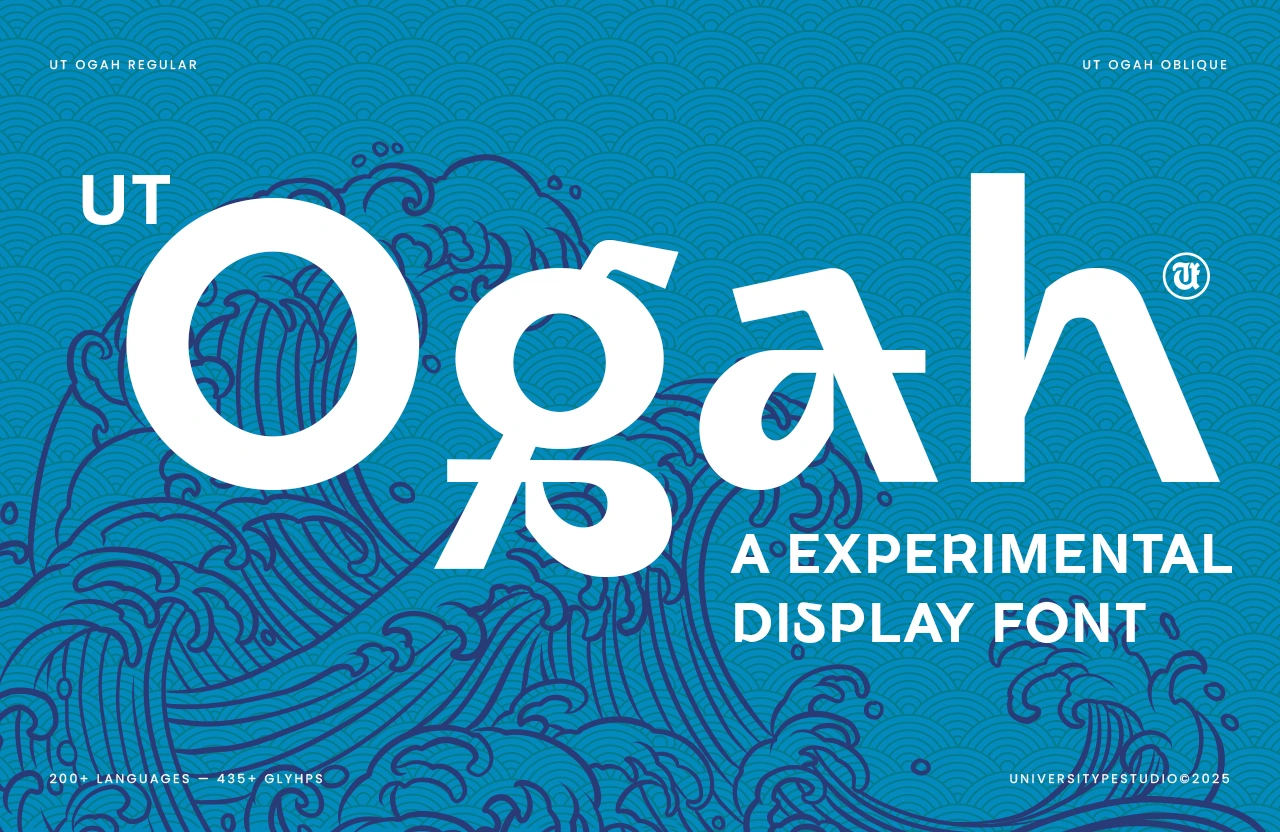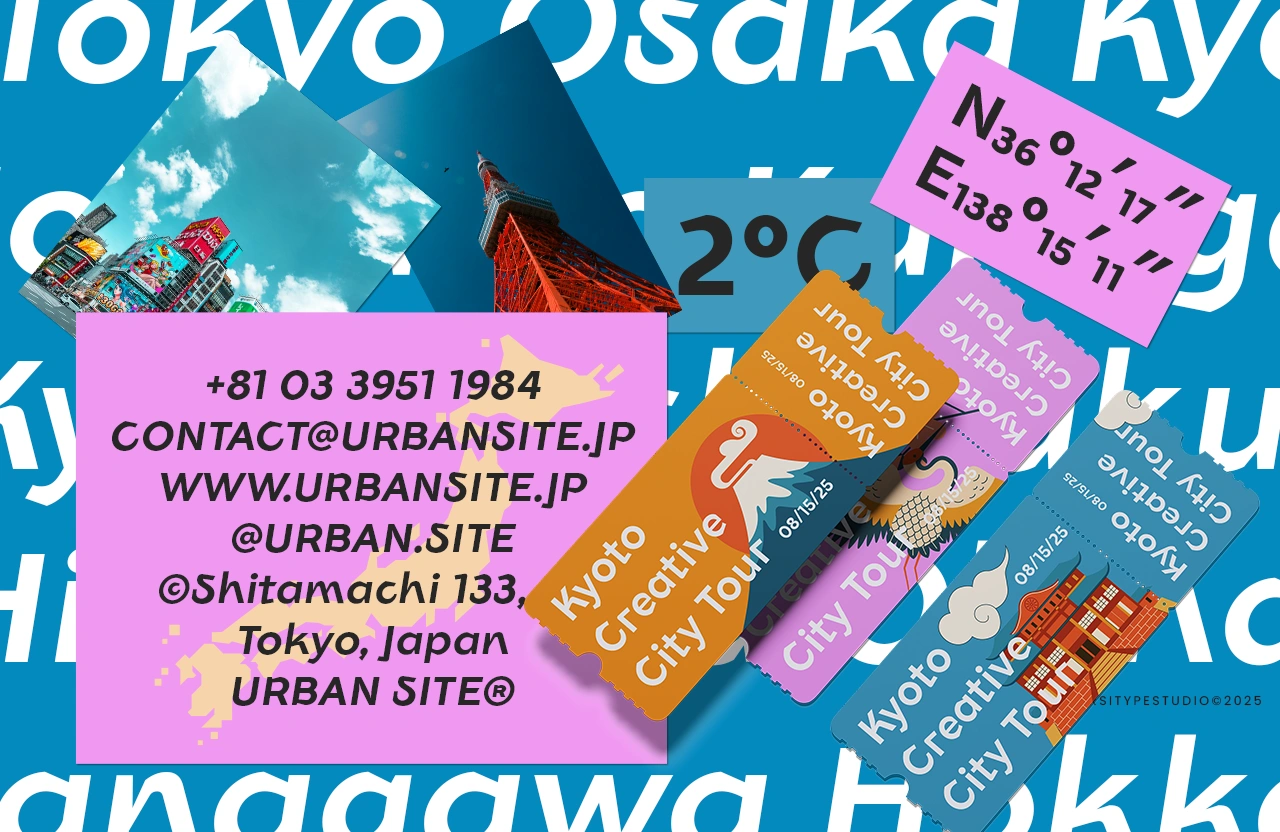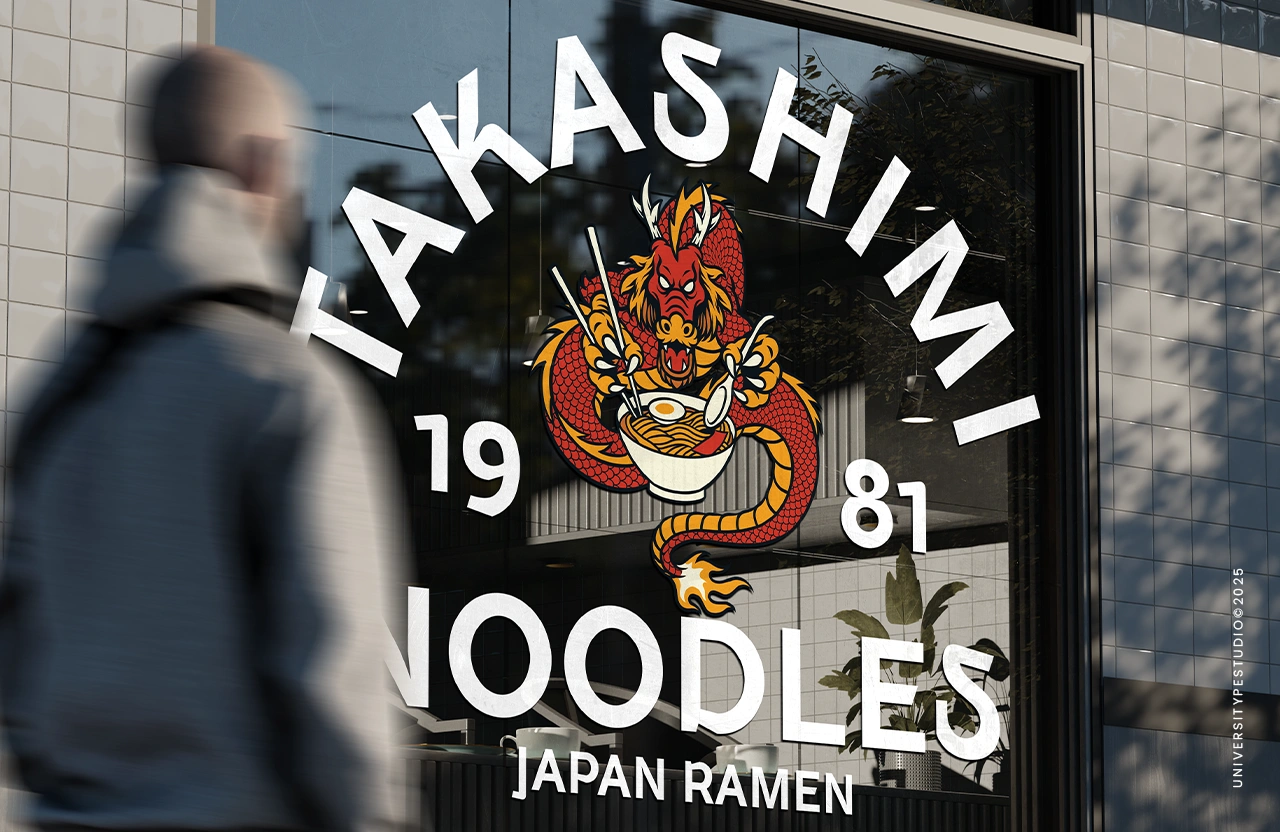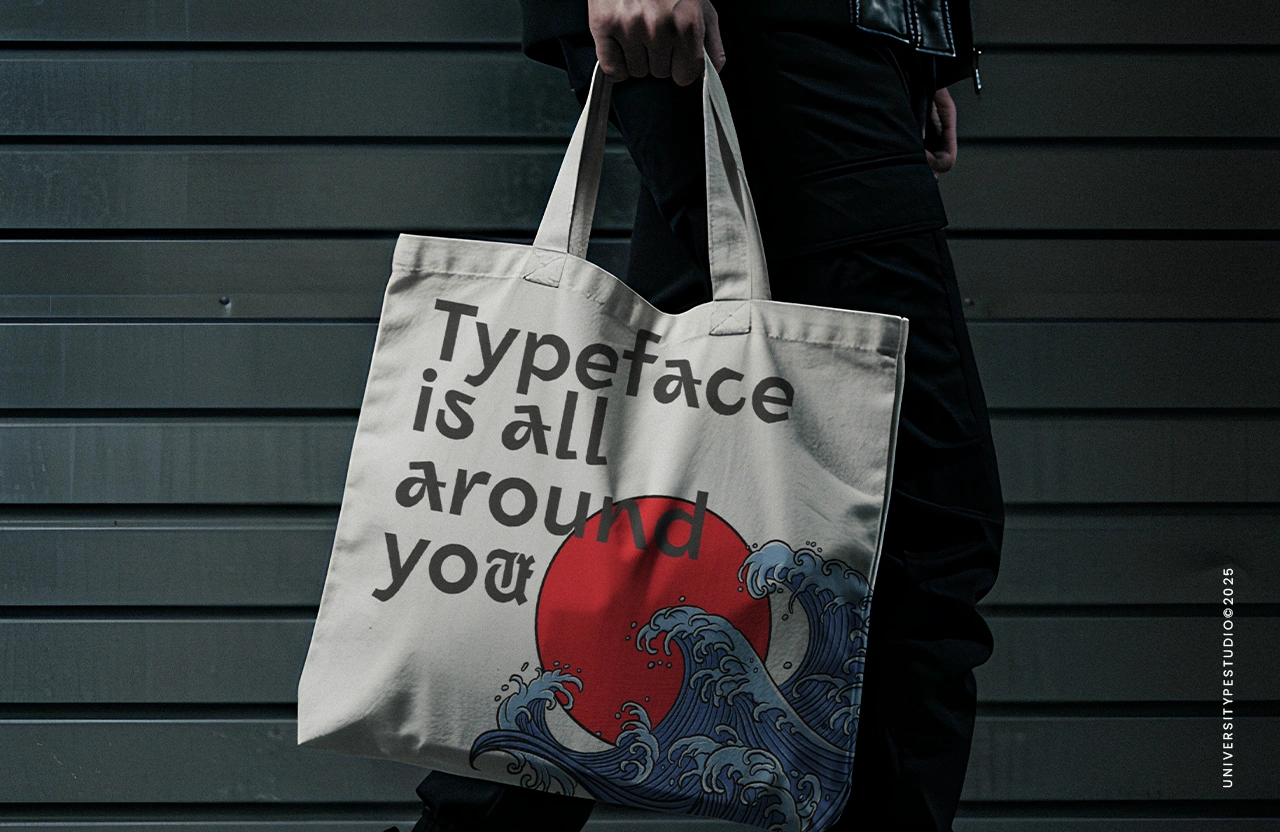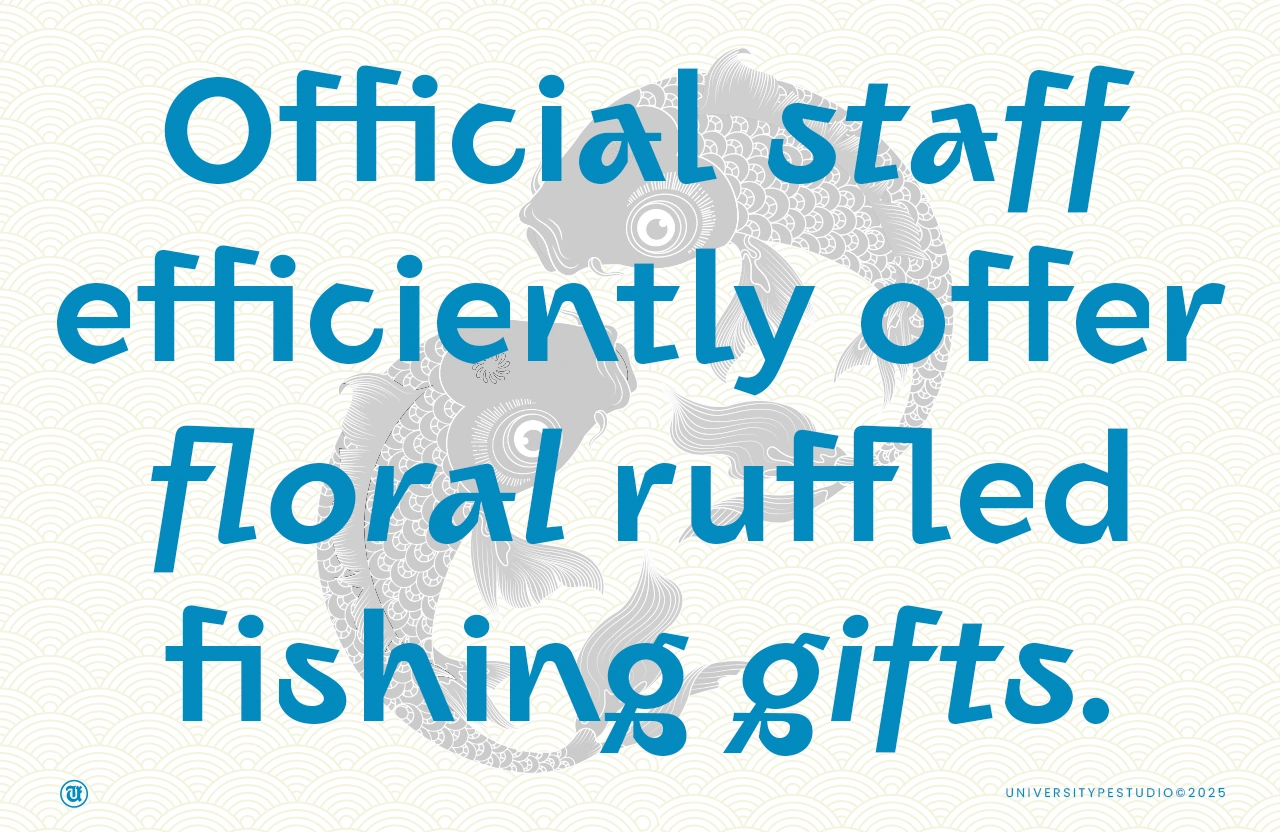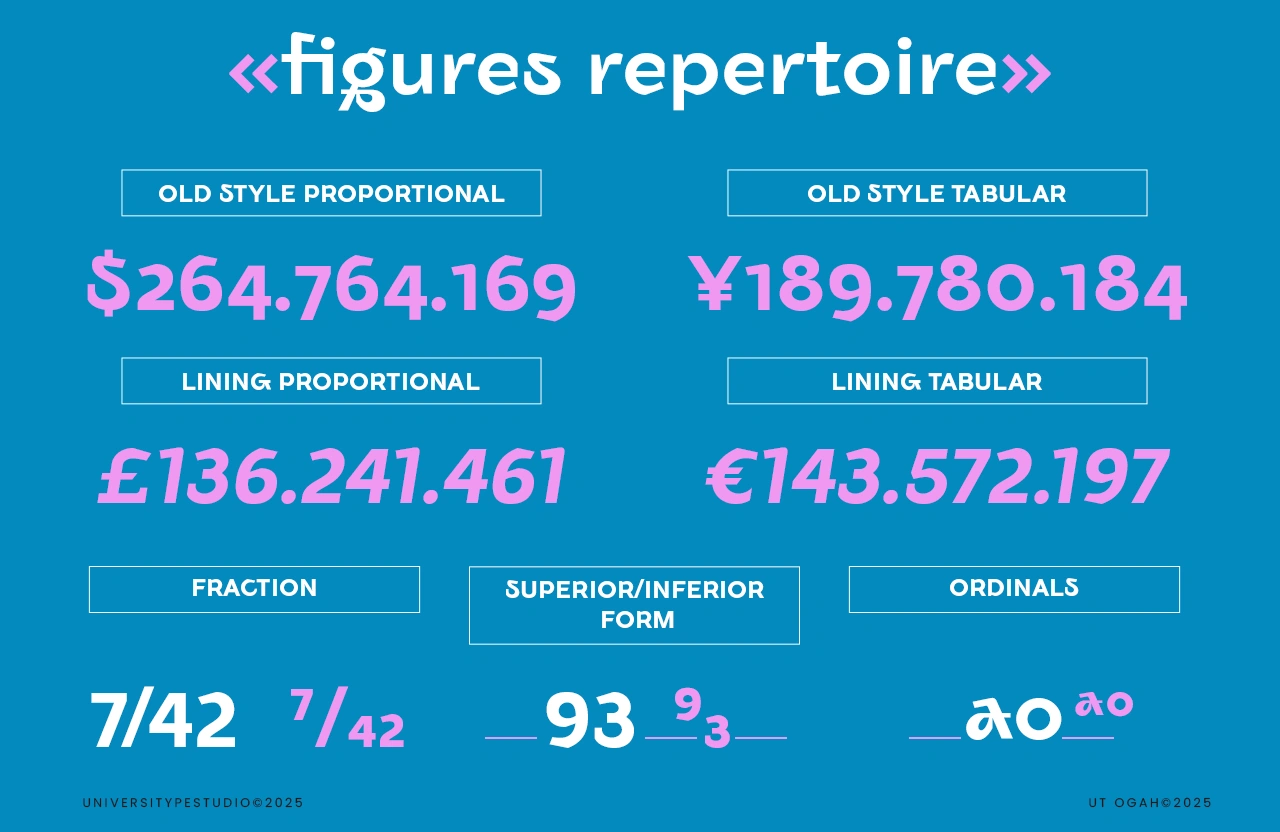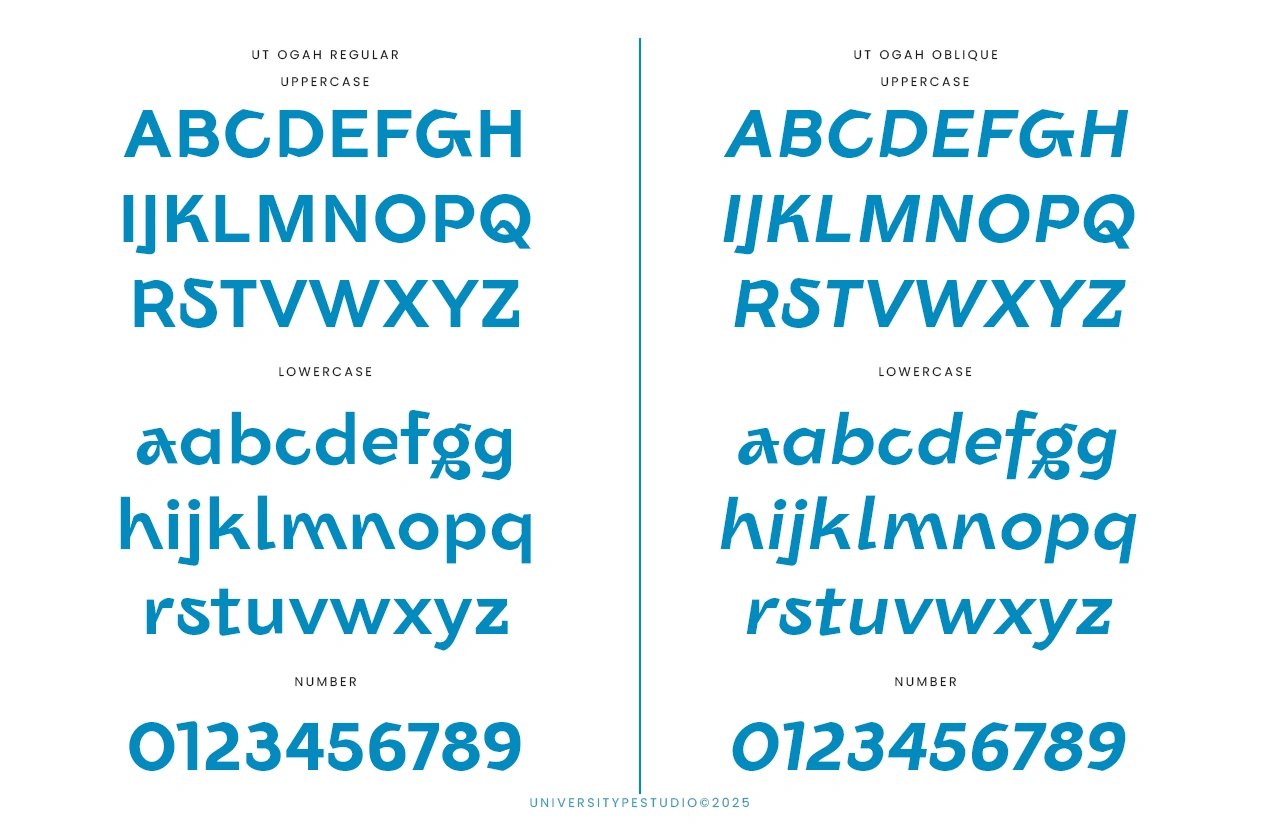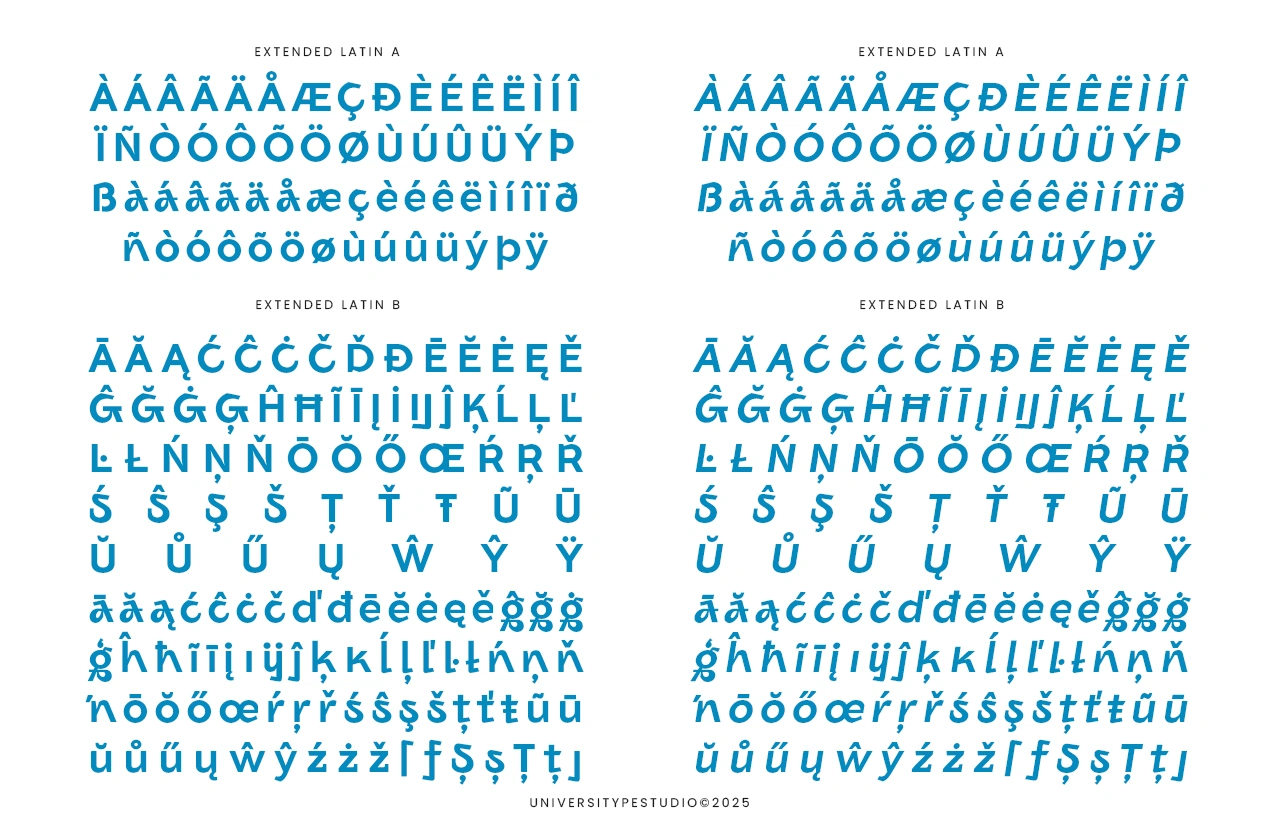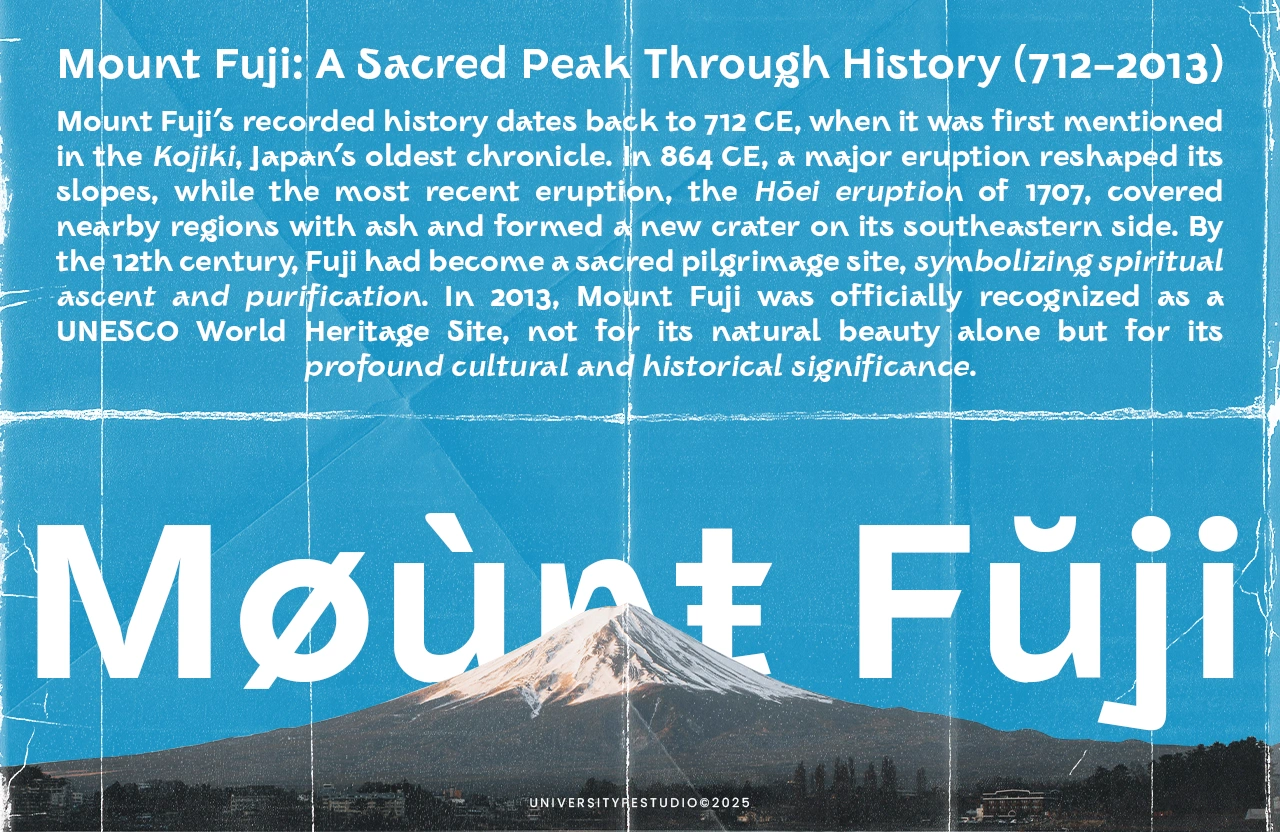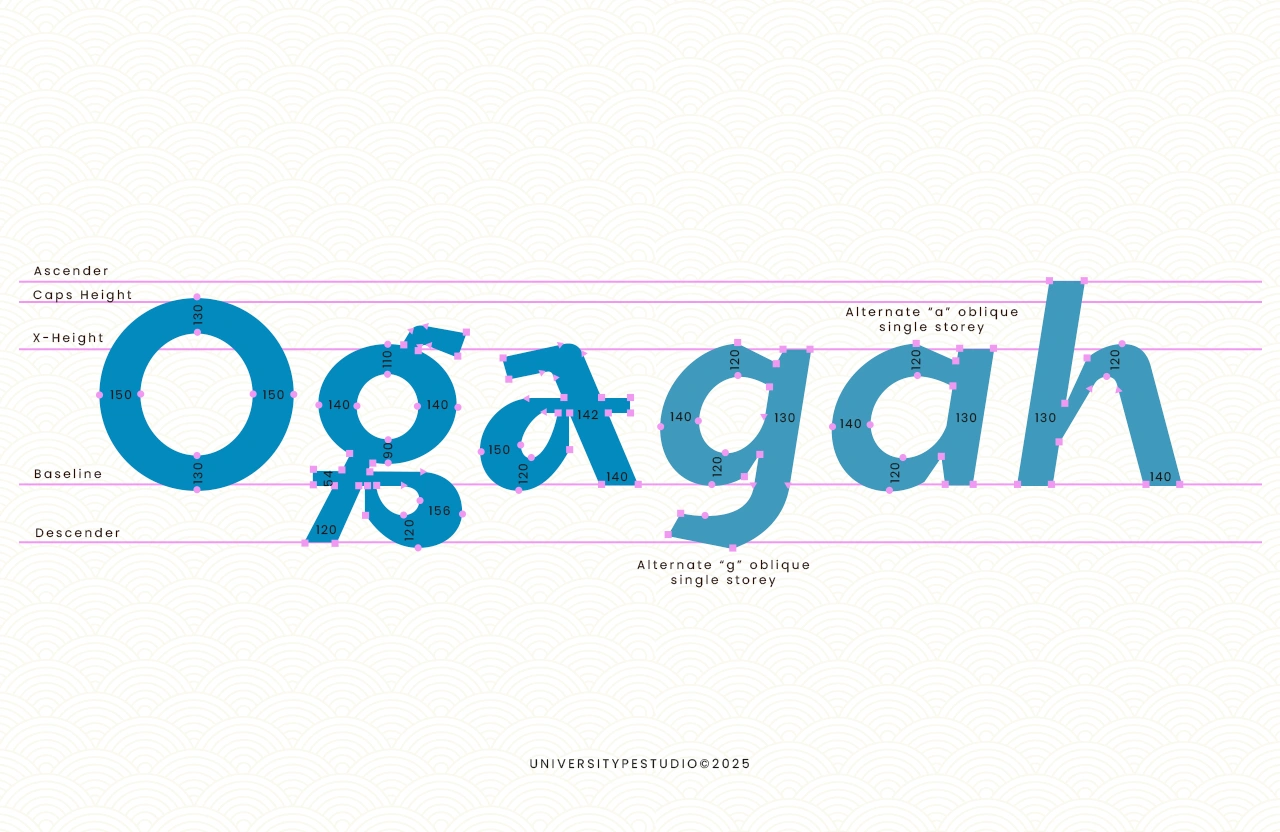
UT Ogah
UT Ogah is a bold display typeface built around contrast: sharp geometry meeting fluid, almost instinctive movement. Designed  with broken structures, unexpected gaps, and soft terminals to create letterforms that feel raw yet controlled.
UT Ogah — Experimental Display Typeface
UT Ogah is a bold display typeface built around contrast: sharp geometry meeting fluid, almost instinctive movement. It plays with broken structures, unexpected gaps, and soft terminals to create letterforms that feel raw yet controlled. The result is a typeface that feels energetic, expressive, and visually charged, ideal for designs that need presence without losing clarity.
UT Ogah works best when it leads. Headlines, branding, and statement-driven visuals benefit from its strong rhythm and unconventional anatomy, giving every composition a distinct voice with a modern edge.
Key Features
• Experimental Anatomy: Intentional breaks and open gaps in characters such as the lowercase g and uppercase R, creating a stencil-like yet fluid impression.
• Two Styles Included: Regular and Oblique, offering contrast between stability and motion.
• Large Glyph Set: 435+ glyphs supporting expressive layouts and complex typographic systems.
• Fluid Terminals: Curves and endings inspired by ink movement and wave-like motion.
• Robust Figure Sets: Old Style, Lining, Proportional, and Tabular figures for flexible typographic use.
Inspiration Behind the Design
UT Ogah draws from Japanese visual culture and urban postmodern aesthetics. The flowing forms reference traditional Ukiyo-e wave illustrations, while the bold structure echoes high-impact signage found across Tokyo’s dense cityscape. This combination brings together expressive heritage and contemporary digital typography, resulting in a font that feels instinctive, modern, and visually alive.
OpenType Features
• Standard Ligatures, Discretionary Ligatures
• Numerators, Denominators
• Superscripts, Subscripts, Scientific Inferiors
• Old Style Figures, Lining Figures, Proportional Figures, Tabular Figures
• Ordinals
• Stylistic Alternates, including single-storey a and g